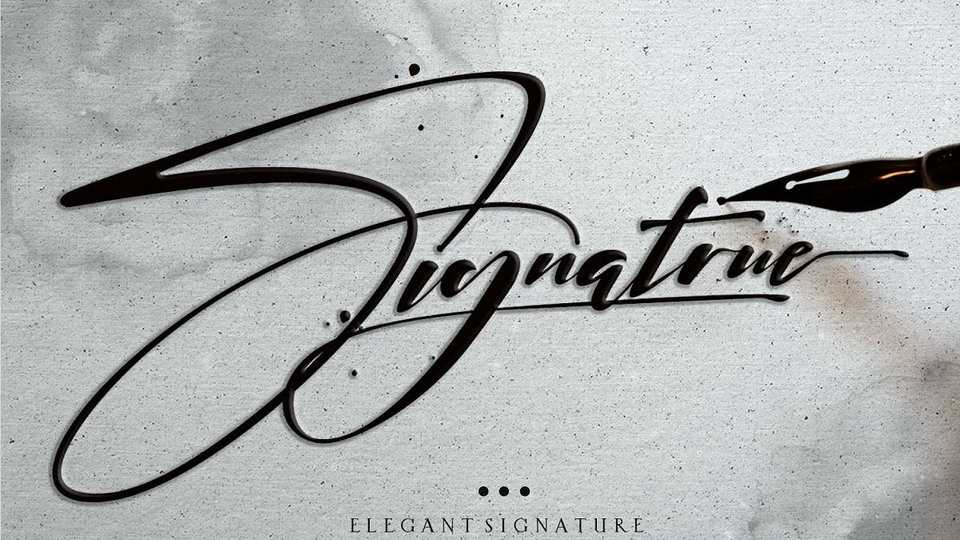
Download Signatrue font – a gorgeous signature style script with impressive look. It made so simple but has a very luxurious taste in it, which is very similar to handwriting using a pen so it is suitable for signatures, logos, watermark photos, and many more.